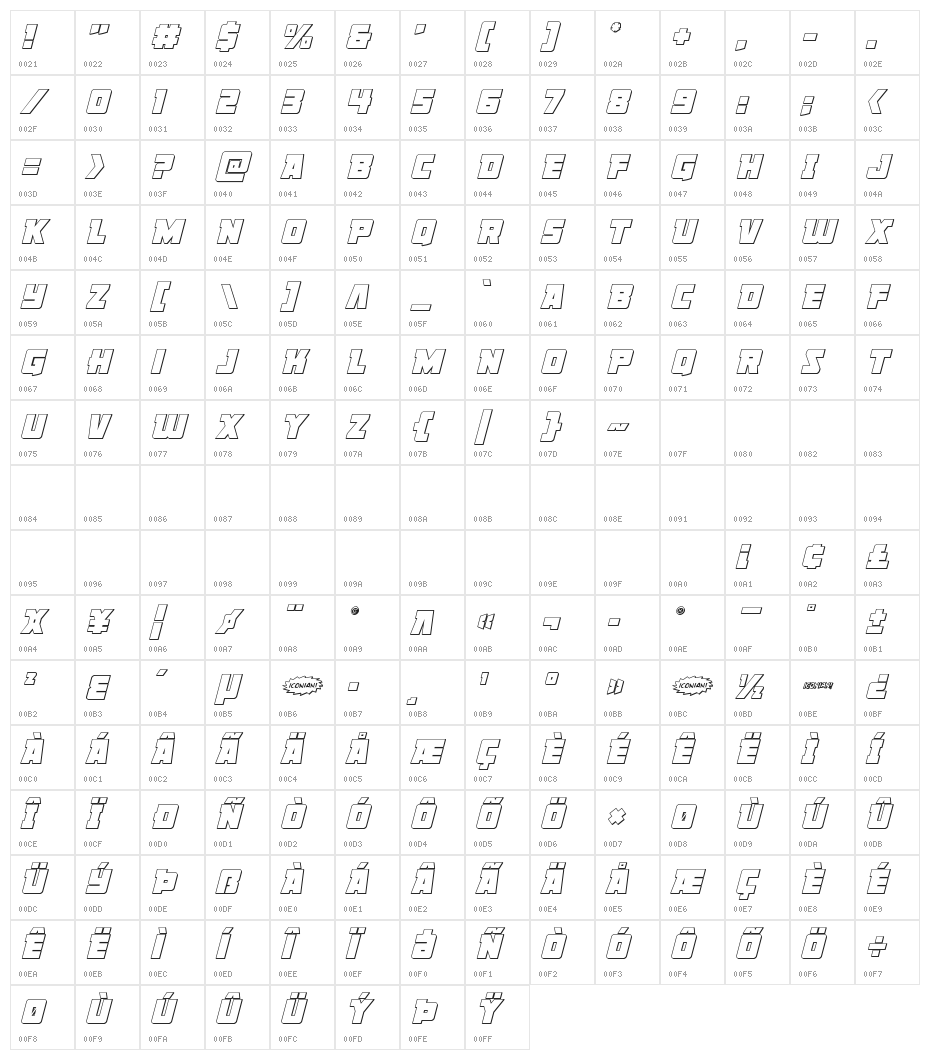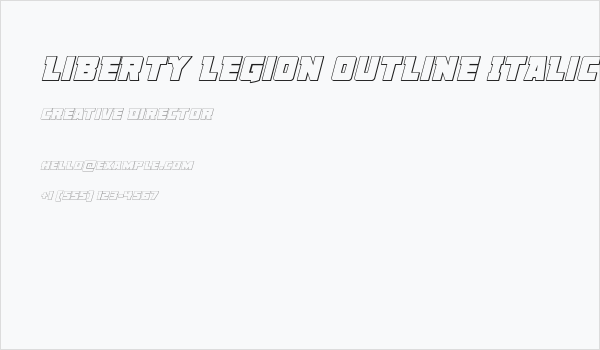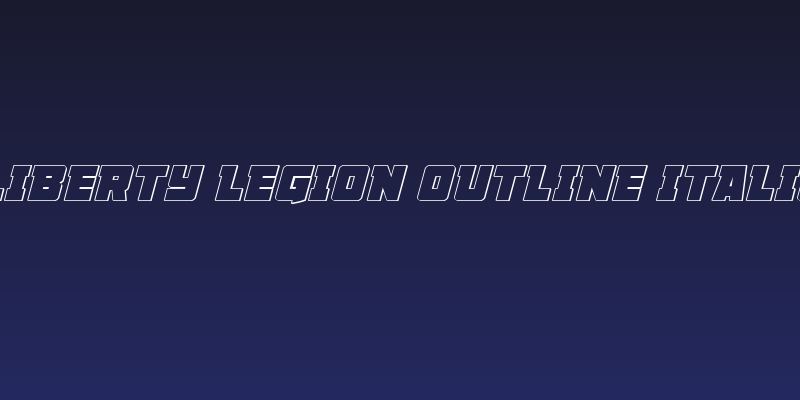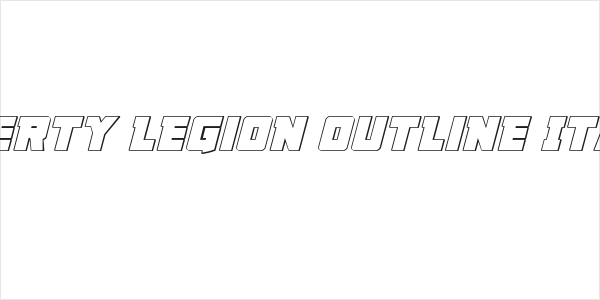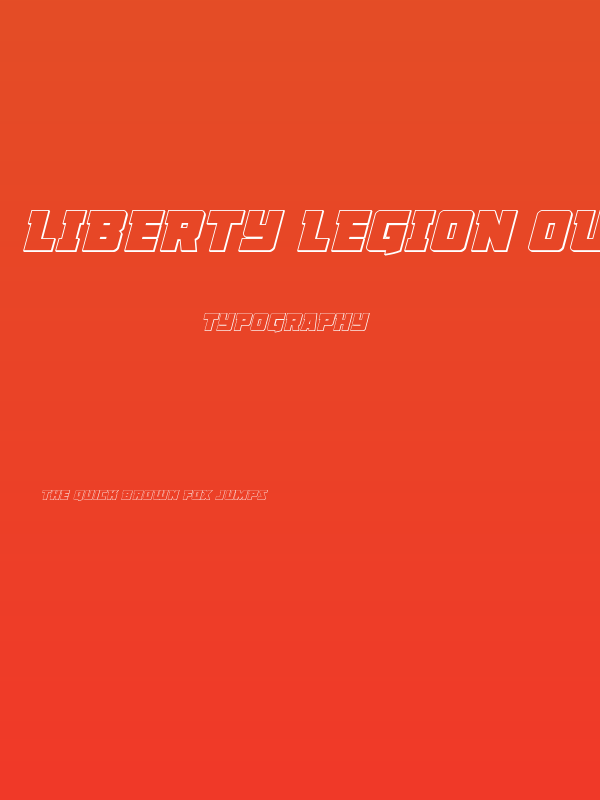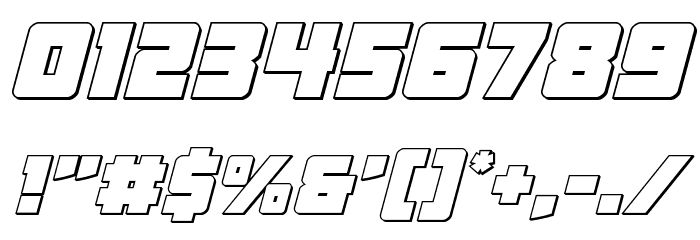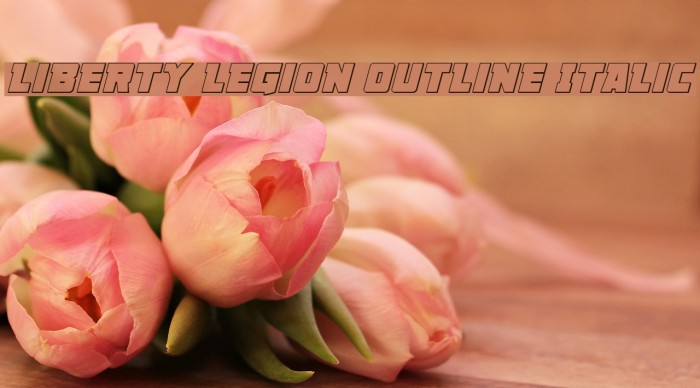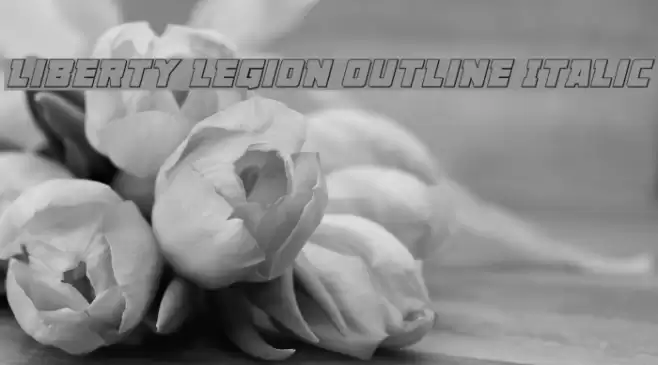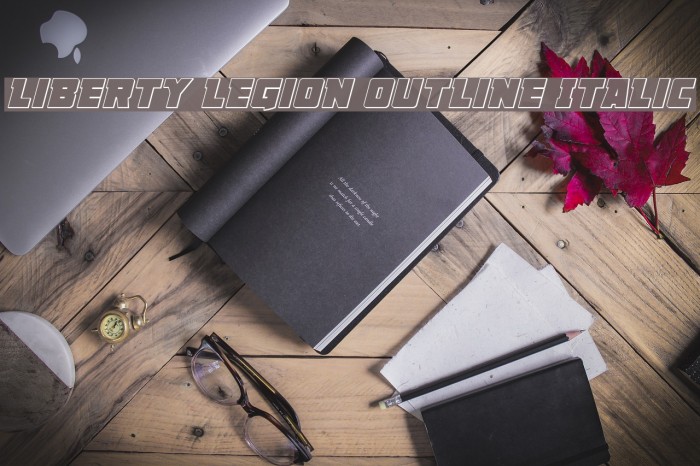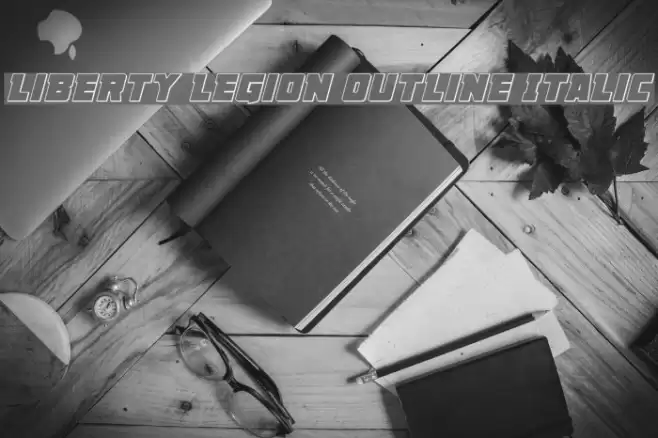
Liberty Legion Outline Italic Font
Liberty Legion Outline Italic Description
This font features a bold, outlined style with a distinct italic slant, giving it a dynamic and modern appearance. The characters are uppercase with a uniform thickness, creating a cohesive look. The outline adds a sense of depth and dimension, making the text stand out. The geometric structure of the letters is complemented by sharp angles and clean lines, which contribute to its futuristic and edgy aesthetic. This font is particularly suitable for projects that require a strong visual impact, such as posters, headlines, or branding materials. The spacing between characters is consistent, ensuring readability while maintaining its bold presence.
| Proposed Projects | Ideal for posters, headlines, branding, and any design requiring a strong visual impact. |